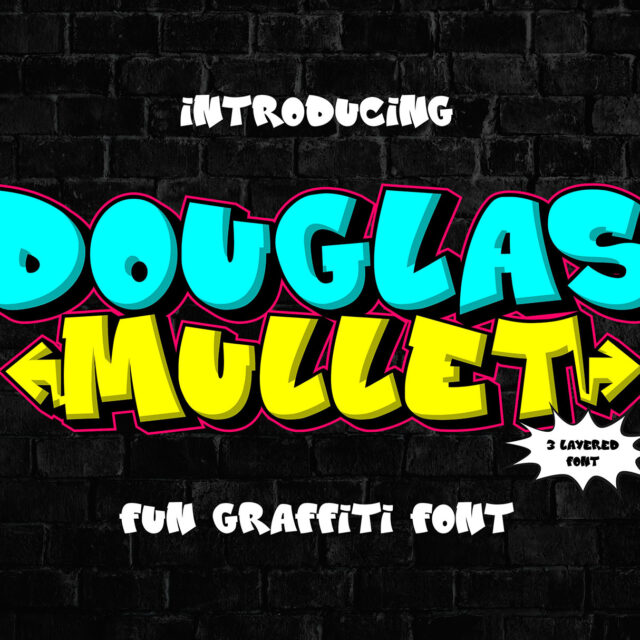
Douglas Mullet
"Douglas Mullet" is a 3D layered graffiti font, featuring stacked layers to create a multi-dimensional effect. Fonts like these are designed to give depth and texture to text,…
About Douglas Mullet
“Douglas Mullet” is a 3D layered graffiti font, featuring stacked layers to create a multi-dimensional effect. Fonts like these are designed to give depth and texture to text, making them visually striking and impactful.
With its layered design, “Douglas Mullet” allows users to experiment with different combinations of layers to achieve various effects. Whether creating bold and eye-catching headlines, dynamic posters, or urban-inspired designs, this font offers versatility and depth to typographic compositions.
• Inluded Stylistic Alternates
• Versatile for branding, headline, or printing product